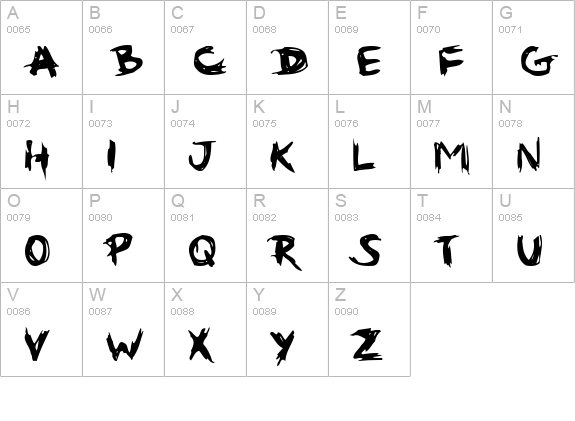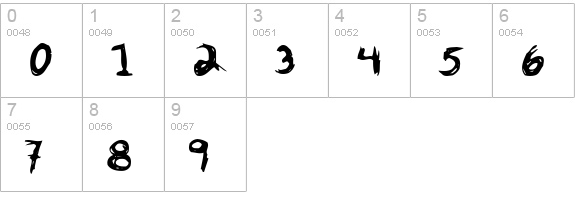
Gribouille 1 font is a whimsical and charming typeface that exudes a playful and hand-drawn aesthetic. With its unique design and quirky details, this font is perfect for adding a touch of creativity to your projects. Whether you're working on invitations, posters, or branding materials, Gribouille 1 font will surely stand out and make a statement. The best part is, Gribouille 1 font is available for free download at FontsMarket.com. So go ahead and unleash your imagination with this delightful font that is sure to bring joy and character to your designs. Don't miss out on the opportunity to add Gribouille 1 font to your collection today!